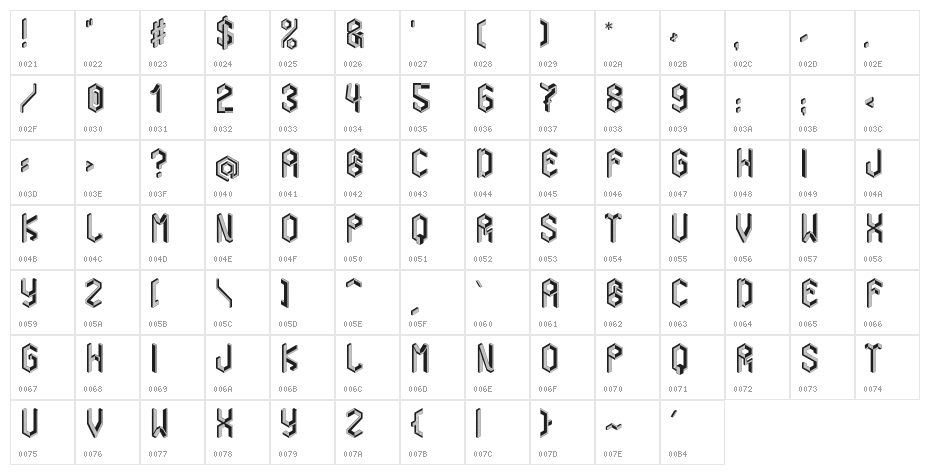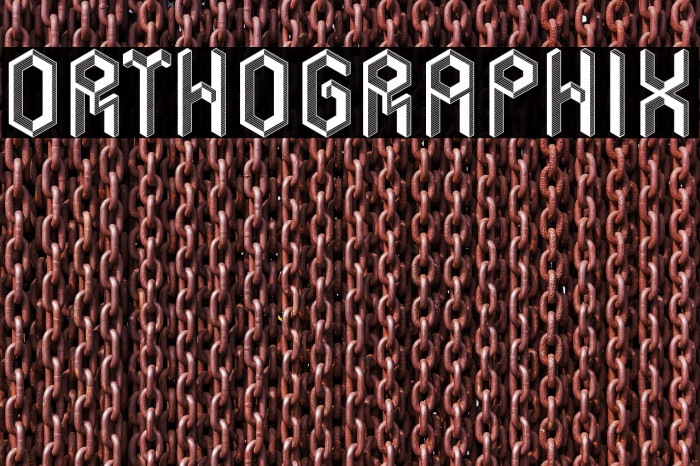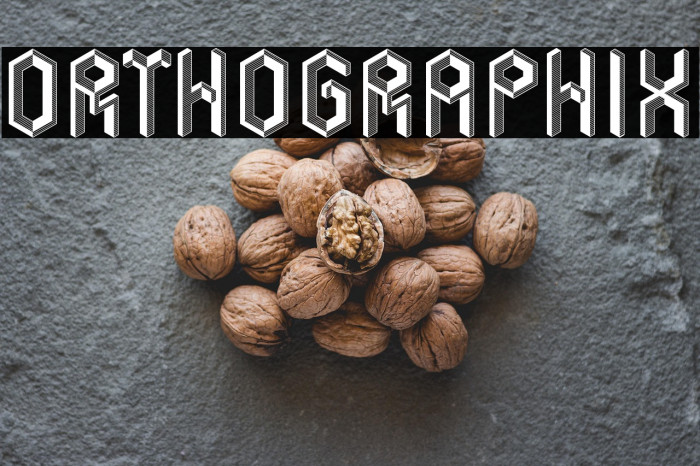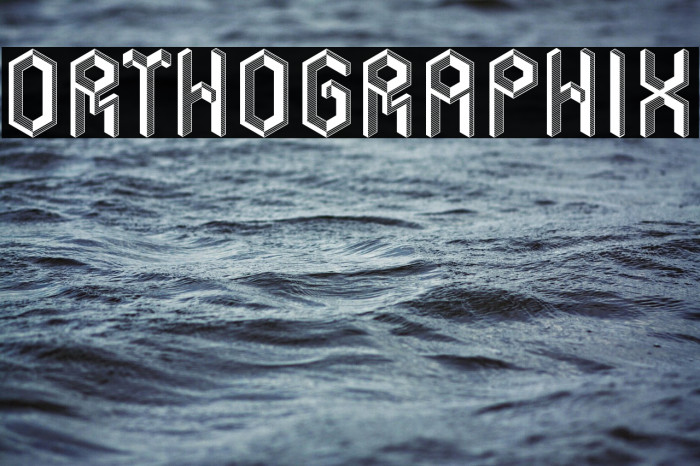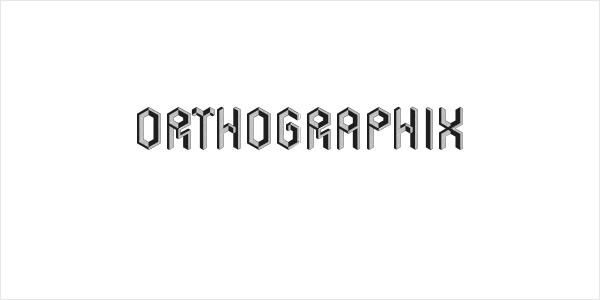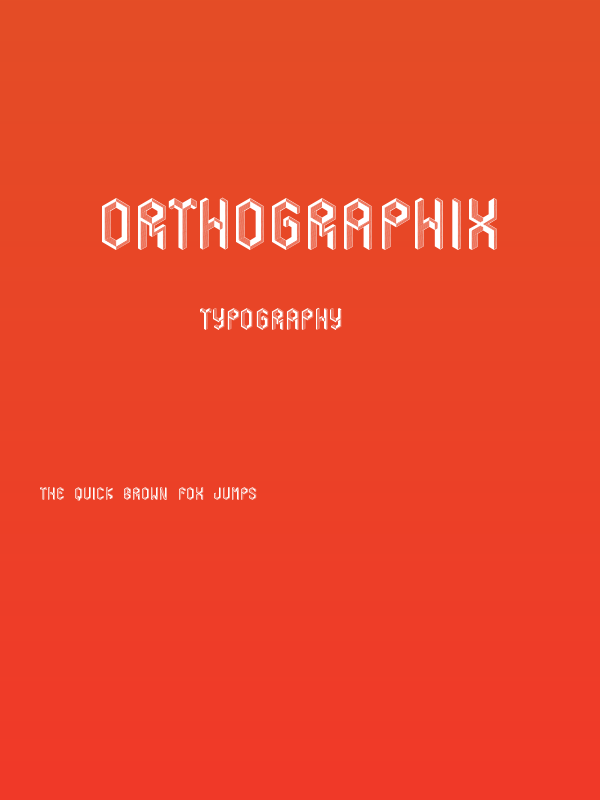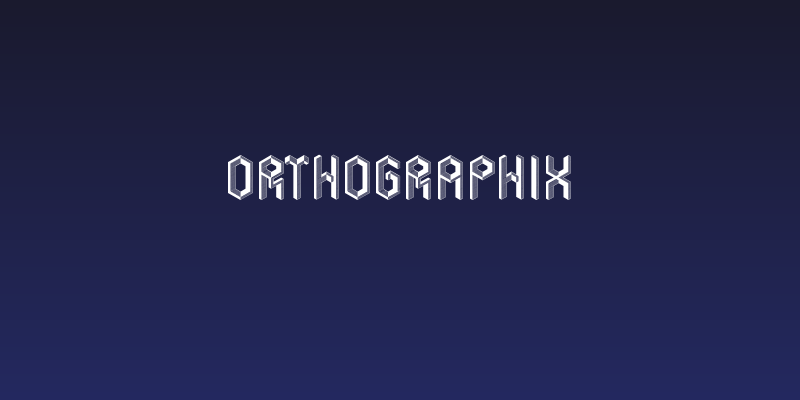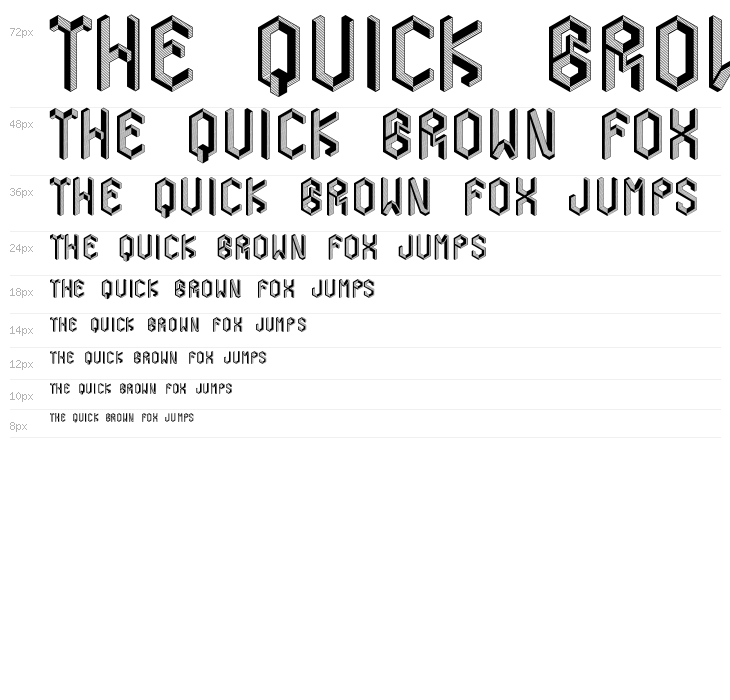
Orthographix Font
Orthographix Description
This font features a bold, three-dimensional design with a distinct shadow effect, giving each character a sense of depth and structure. The geometric shapes are consistent throughout, with sharp angles and clean lines that create a modern and industrial feel. The uppercase letters are particularly striking, with their blocky forms and intricate detailing. The numbers and special characters maintain the same style, ensuring a cohesive look across all elements. This font is ideal for projects that require a strong visual impact and a contemporary aesthetic.
| Proposed Projects | Ideal for branding, posters, headlines, and any design requiring a strong visual impact. |